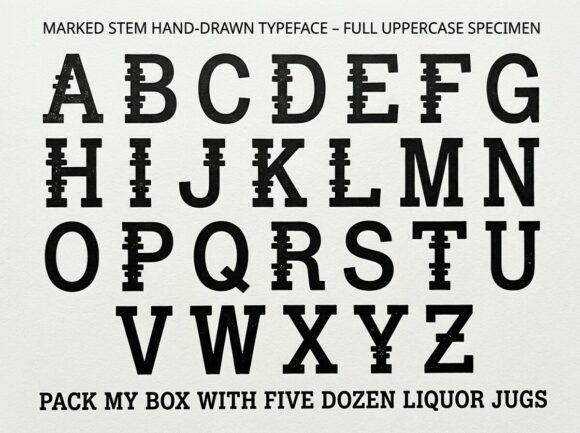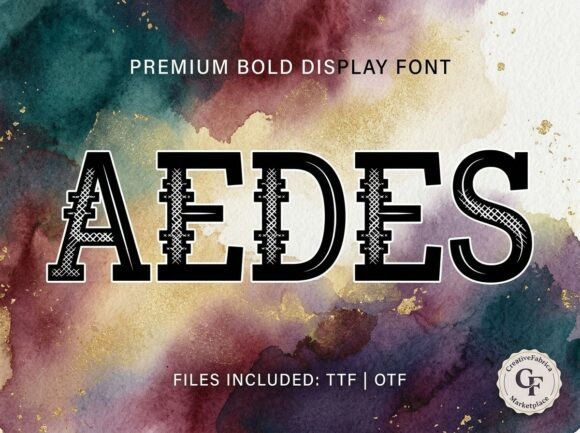
Introducing Aedes Font: Elevate Your Creative Projects with a Decorative Display Font
Are you tired of using the same old fonts for your creative projects? Do you want to add a touch of elegance and sophistication to your designs? Look no further than Aedes Font, a decorative display font designed to be the centerpiece of any layout. With its distinct artistic elements and strong character, Aedes Font is perfect for creators who want to break away from the ordinary and elevate their designs to the next level.
What Makes Aedes Font Special?
Aedes Font is a unique and stylish font that is designed to make a statement. Its bold and artistic elements make it perfect for a variety of creative projects, from bold headlines to creative branding and packaging. The font is designed to deliver a high-end, professional aesthetic without compromising on personality, making it ideal for designers and crafters who want to add a touch of sophistication to their work.
Key Features of Aedes Font
Aedes Font comes with a range of features that make it a versatile and practical choice for designers and crafters. Some of the key features of the font include:
It’s worth noting that Aedes Font is an all-caps display typeface, which means that it does not contain lowercase letters. This makes it a powerful tool for logos, titles, and decorative initials, but it’s not suitable for body text or other applications where lowercase letters are required.
Uses for Aedes Font
Aedes Font is a versatile font that can be used for a wide range of creative projects, including:
- Bold Headlines: The font’s bold and artistic elements make it perfect for headlines and titles, adding a touch of elegance and sophistication to any design.
- Creative Branding: Aedes Font is ideal for branding and packaging, delivering a high-end, professional aesthetic that is sure to impress.
- Logos and Icons: The font’s strong character and artistic elements make it perfect for logos and icons, adding a touch of personality and style to any design.
- Decorative Initials: Aedes Font is also great for decorative initials, adding a touch of elegance and sophistication to any design.
Why Choose Aedes Font?
There are many reasons why Aedes Font is a great choice for designers and crafters, including:
- Unique and Stylish: The font’s distinct artistic elements and strong character make it a unique and stylish choice for any design.
- High-End Aesthetic: Aedes Font delivers a high-end, professional aesthetic that is sure to impress, without compromising on personality.
- Versatile: The font can be used for a wide range of creative projects, from bold headlines to creative branding and packaging.
In conclusion, Aedes Font is a decorative display font that is perfect for designers and crafters who want to elevate their creative projects to the next level. With its distinct artistic elements and strong character, the font is ideal for a wide range of applications, from bold headlines to creative branding and packaging. Whether you’re looking to add a touch of elegance and sophistication to your designs, or simply want to break away from the ordinary, Aedes Font is a great choice.